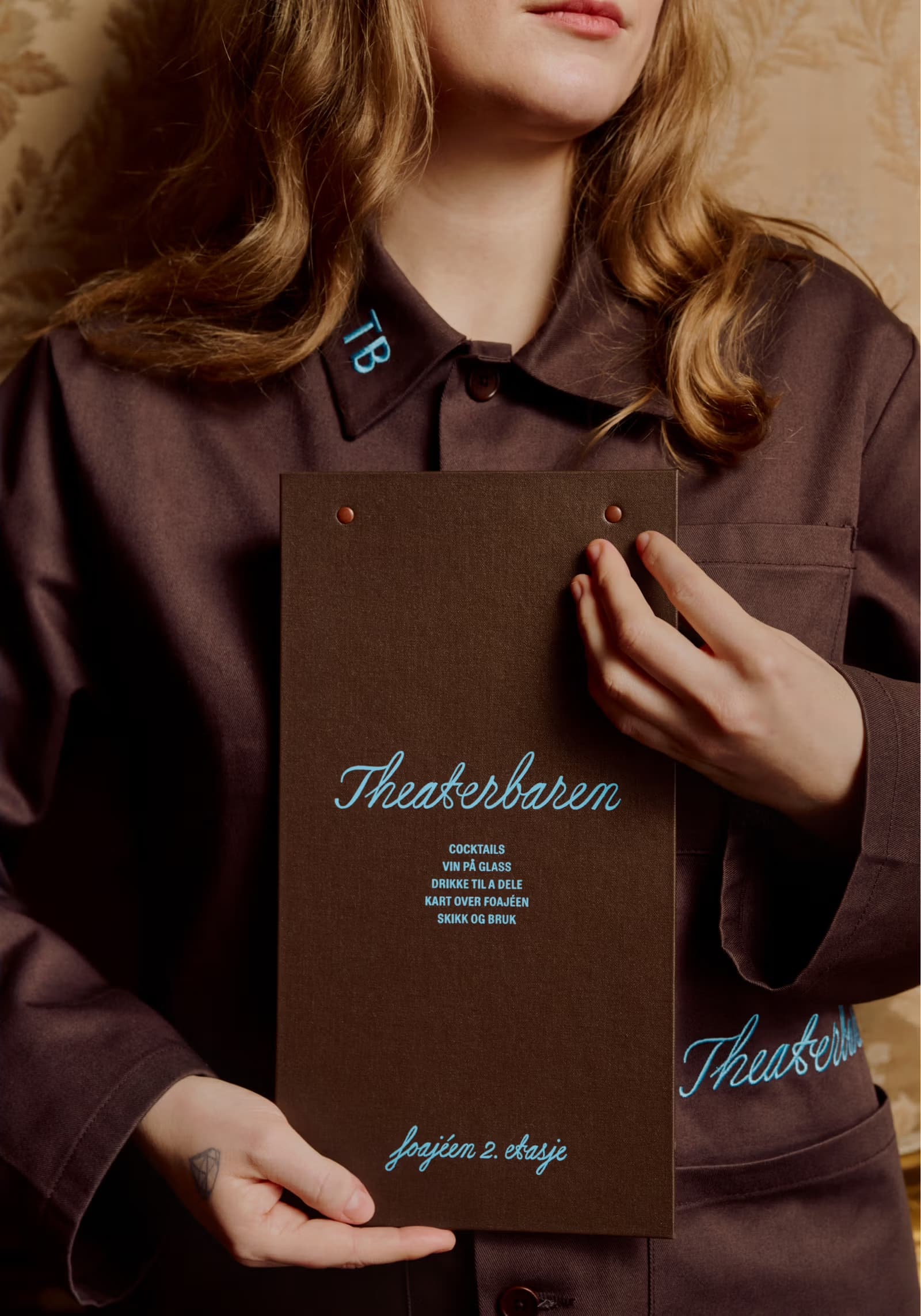
Neo-Baroque grandeur meets neo-Rococo interiors, classical Greek and Roman ornament, and Art Nouveau vitality, seen through the visual lens of Norwegian design studio OlssønBarbieri.
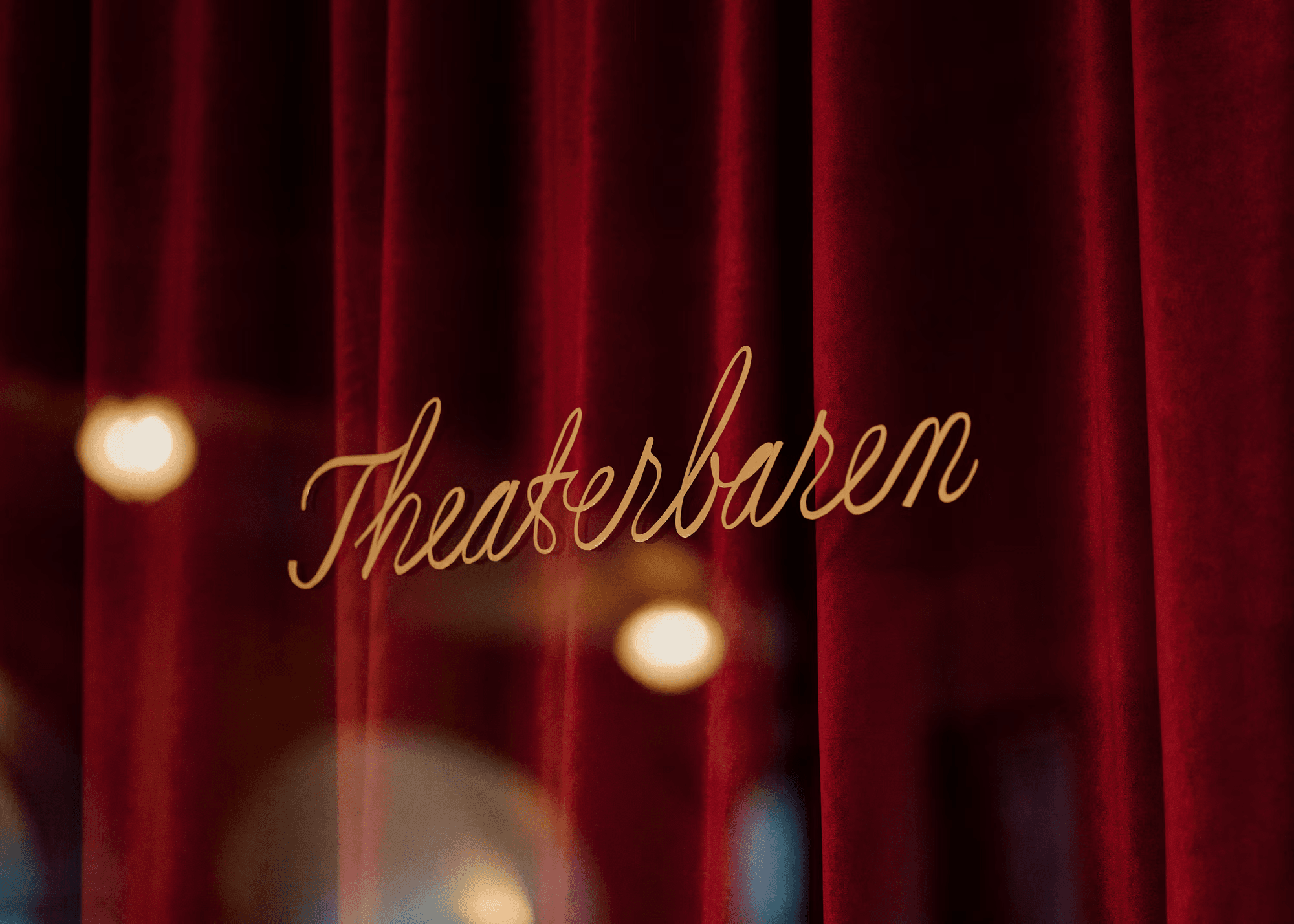
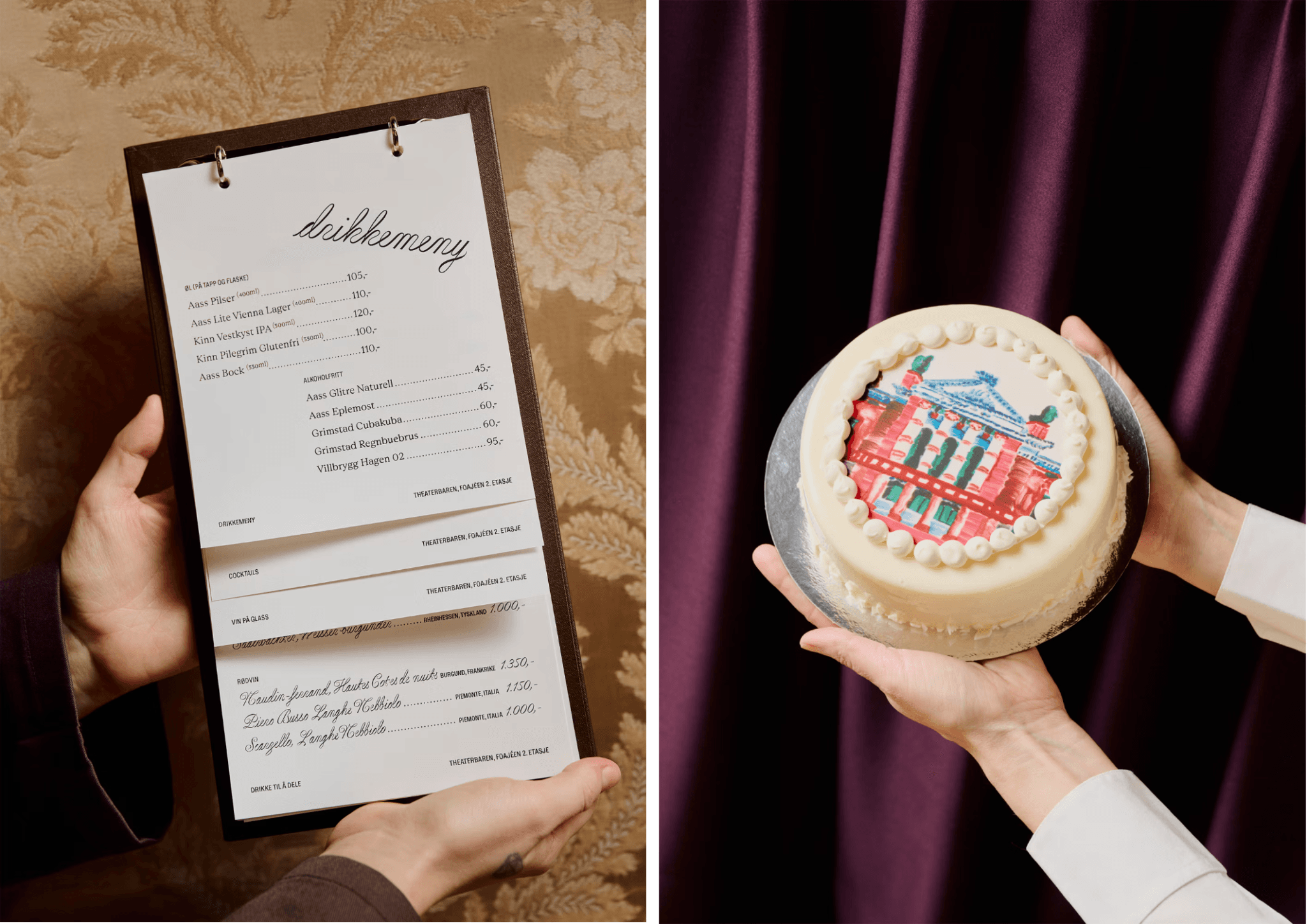
At the heart of the historic Nationaltheatret, Theaterbaren emerges as a contemporary extension of the theatre’s identity — a social stage suspended between performance and everyday ritual.
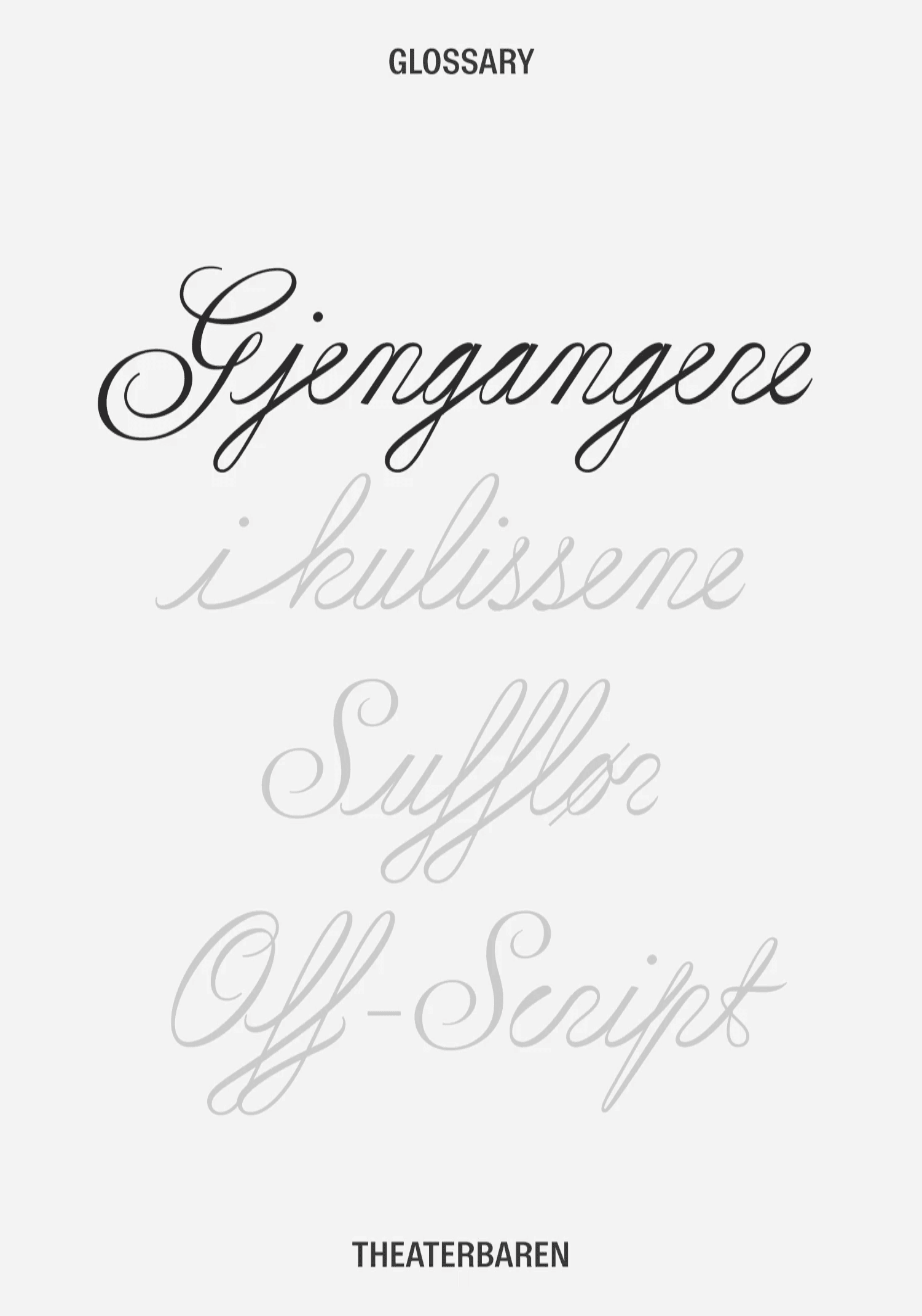
Within interiors shaped by monumental architecture and theatrical memory, curtains, mirrors, chandeliers, and florals evolve into a flexible visual vocabulary, transforming ornamental heritage into something playful, cinematic, and alive.
"The art direction embraces the performative nature of the theatre itself, where gestures become choreography and etiquette transforms into storytelling."
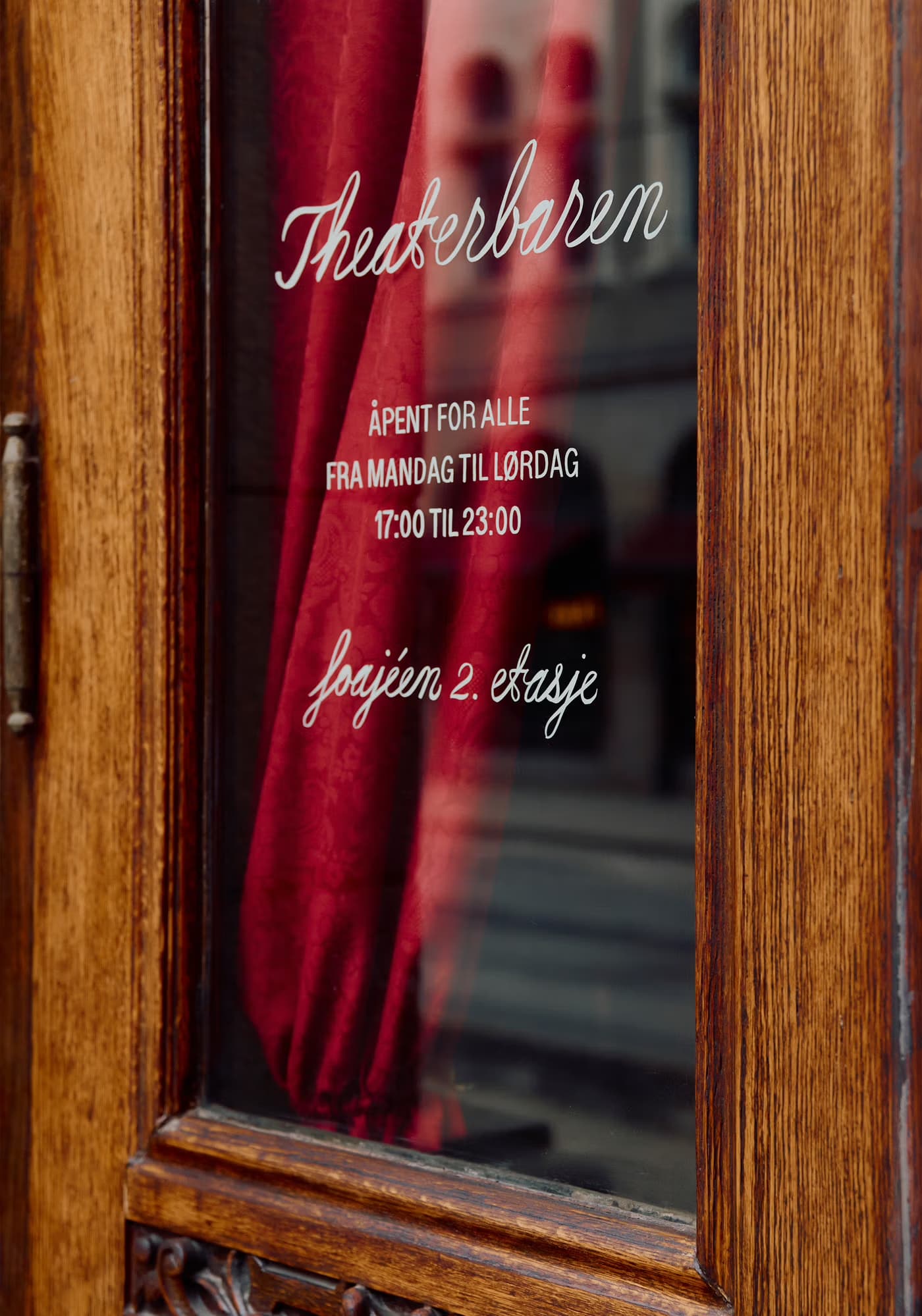
Typography plays a central role in this atmosphere, featuring Cordier Script by Benjamin Gómez, whose expressive calligraphic forms introduce rhythm and flourish across menus, signage, and digital applications.
Typeface: Cordier Script